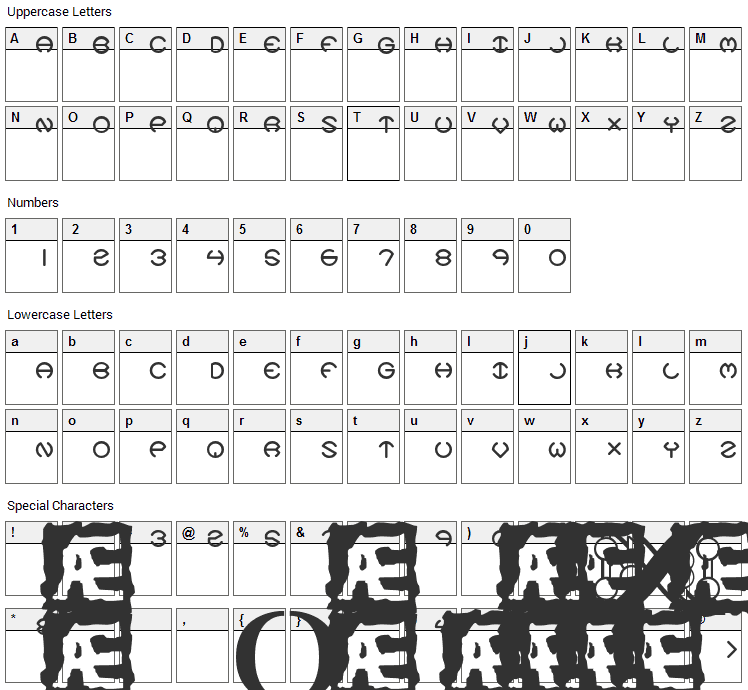
Code Of Life + Spheroids Font
Category:Fancy > Decorative
With this font you can make DNA with lettering in the top and bottom Helixes. I'm not sure if Helix is the correct term for the Top and Bottom parts of DNA
NOTE: the other fonts included 'Spheroids' & 'Spheroids X' are Bonus Fonts. They're the lettering that's in 'Code Of Life' but without the DNA :)